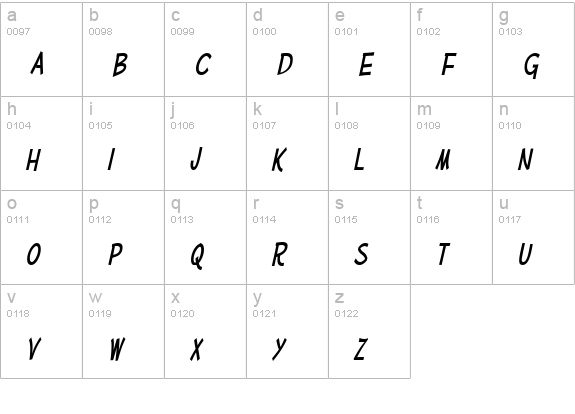
Mufferaw Cnd Italic Font Details
Mufferaw Cnd Italic is a distinctive, italic variant in the Mufferaw typeface family \xE2\x80\x94 well suited to design and typography projects.